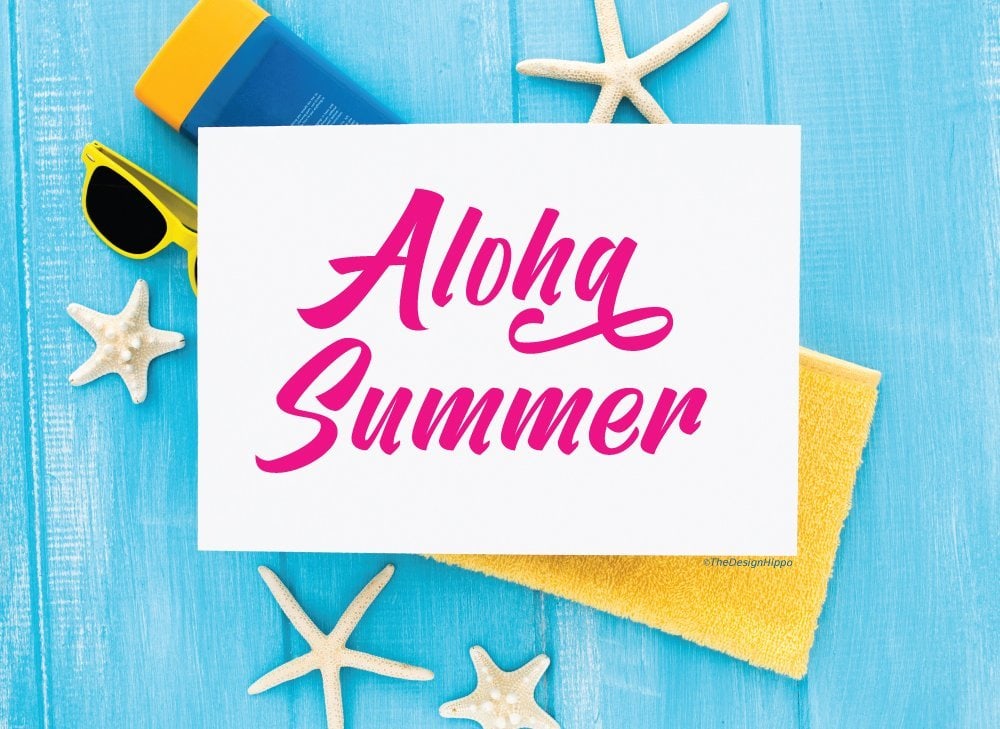
Are you looking for the best and free script fonts to use in your commercial projects for business? You are in the right place! I listed down a collection of modern, cute, elegant, handwritten, brush, vintage, and calligraphy fonts. Some of these fonts come with beautiful tails and swashes that are sure to make your designs extra special!
I hope that you love the script fonts that I put together for you and included a wide variety of font styles – modern, brush, handwritten, calligraphy, etc. So feel free to install these fonts and try them to figure out what works best for you. I included an example for each font to give you a better idea of using them.
FREE SCRIPT FONTS FOR COMMERCIAL USE
1. Ontel
This is such a fun, stylish, and bold script font! This handwritten font works well for branding, making signs, social media posts, logos, greeting cards, and writing quotes.
2. Open Heart
Open Heart is such a stunning and modern script font! It works very well for making elegant, feminine designs, business cards, logos, and invitations.
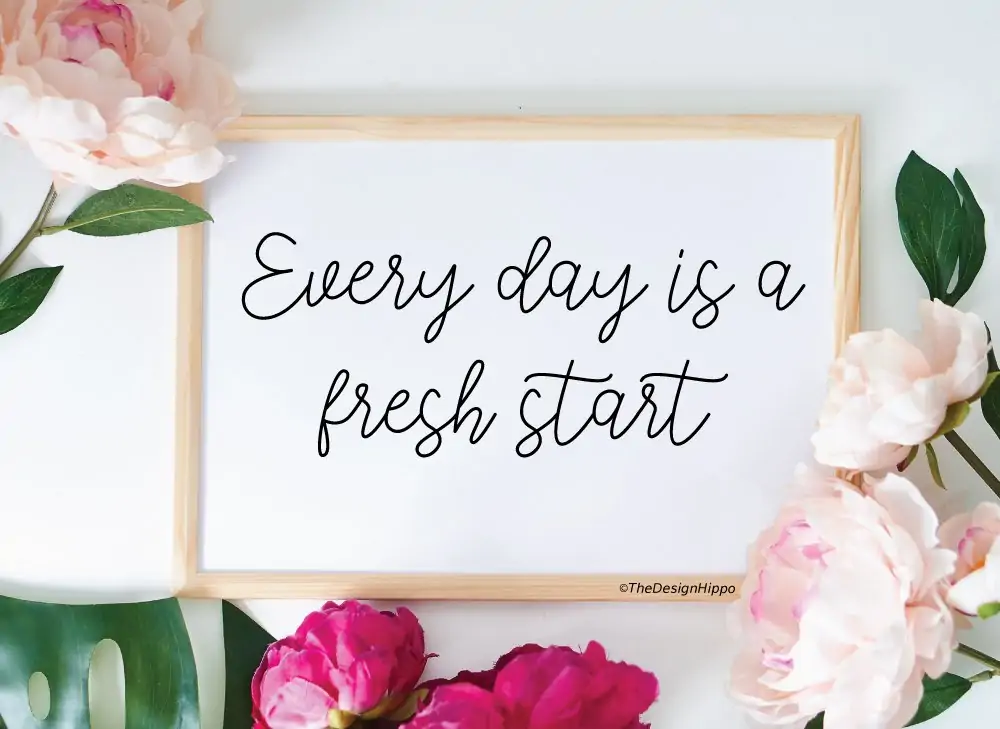
3. Amellis Path
Amellis is an elegant handwritten brush font that is perfect for so many projects. You can make designs for apparel, holiday cards, home decor, and social media posts.
4. Satori
A fun, quirky font with a dancing baseline to give your project a handwritten feel. Works well for writing funny, inspirational quotes.
5. Mama
An elegant and smooth script font that adds a handwritten feel to your projects. It comes with a set of gorgeous tails that you can use to make invitations, greeting cards, business cards, and wall art.
6. Vervelle
Vervelle is a fun vintage font with swashes. It has a playful and unique charm to it making it perfect for any project that needs to stand out.
7. Anjhay
A modern, fun font that works great for branding. I also love how cute quotes look in this font. Use the font in your black and white or pastel color-themed projects, and the results are stunning!
8. Shelly
Shelly is a cute and modern font that is sure to help add a lot of charm to your design projects. Use it to write inspirational quotes and any branding projects that need a punch of playful energy.
9. Sileighty
With its dancing baseline and a handwritten feel to it, Sileighty is sure to add a huge dose of cuteness to any of your projects.
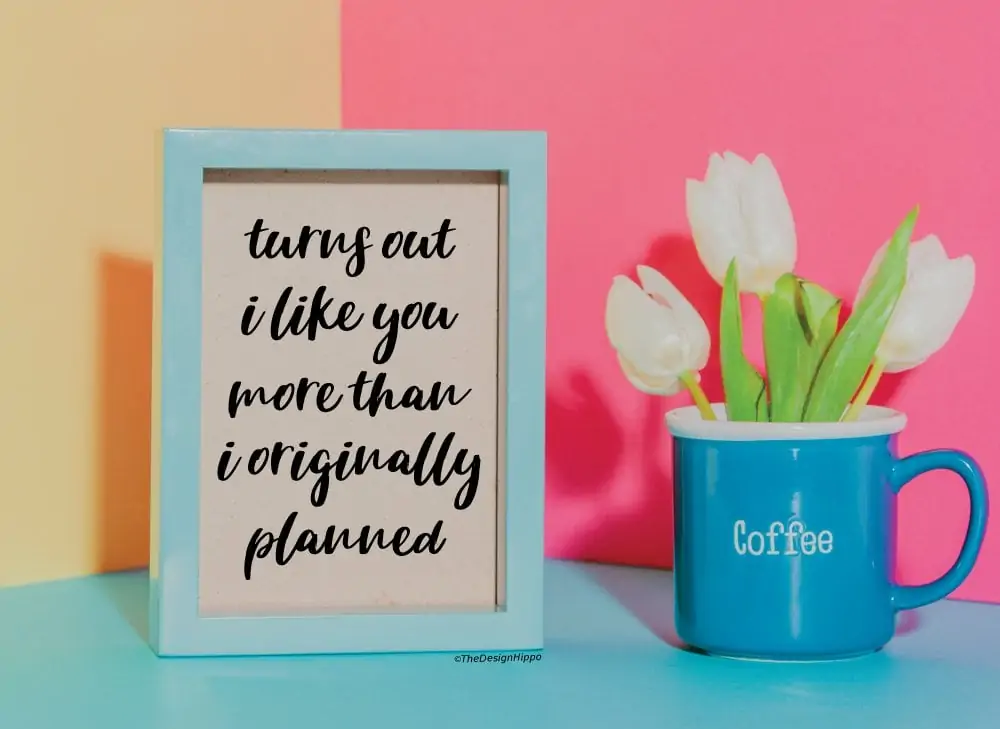
10. Short Message
A fun modern font that makes quotes look amazing. Great for social media posts or designing to make t-shirts, mugs, signs, tote bags, and more.
11. Nickainley
A cute monoline font that’s both vintage and classy in its appeal. Ideal for so many projects and themes – camping, inspirational quotes, packaging, advertising, restaurant menus, etc.
12. Amandella
A cute handwritten font with varying stroke thickness, ideal for adding that personal touch to your projects. Great for branding, social media posts, wedding invitations, and designing beautiful quotes.
13. William
A cute, bouncy script font that’s perfect for adding an elegant yet playful appeal to your design projects. Beautiful for writing quotes, designing wall art, greeting cards, and invitations.
14. My Shine
A beautiful calligraphy font with such cute swashes ending with hearts! Great for making invitations, posters, writing quotes, and branding.
15. Brighton
Brighton is a cute calligraphy font with a stroke that has a varying thickness. It is sure to make your design project look unique and professional.
16. Cloudy Night
Cloudy night is a fun font with a playful feel perfect for writing quotes to make printables, signs, or social media.
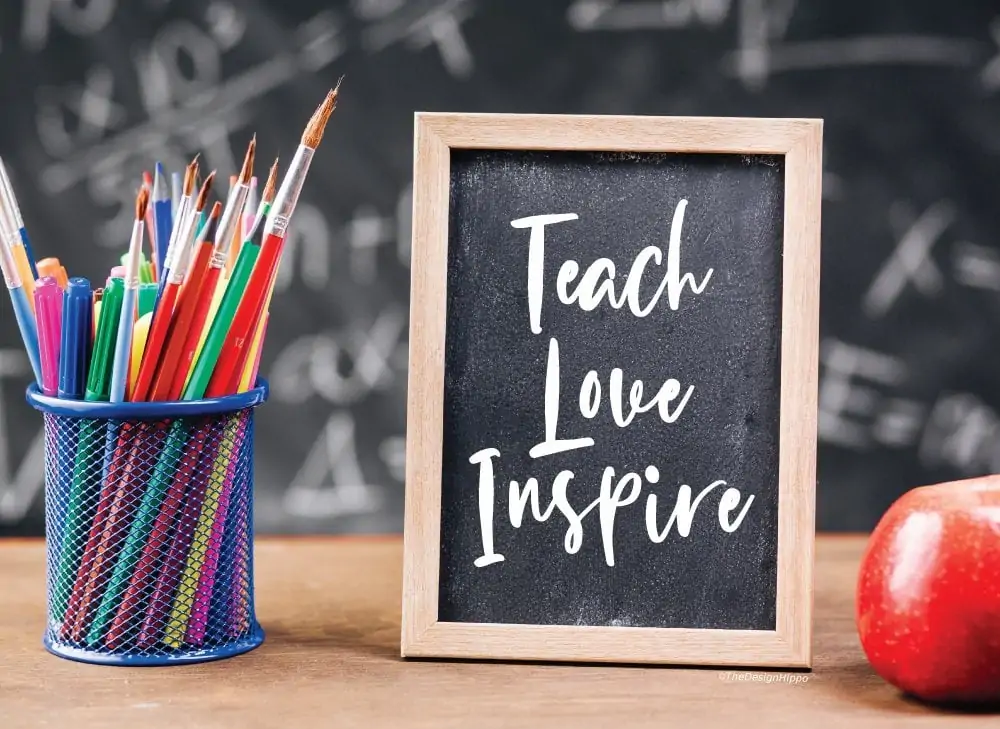
17. Girl
This is a beautiful handwritten font with amazing glyphs and swashes to play with. Perfect for making wall art and invitations.
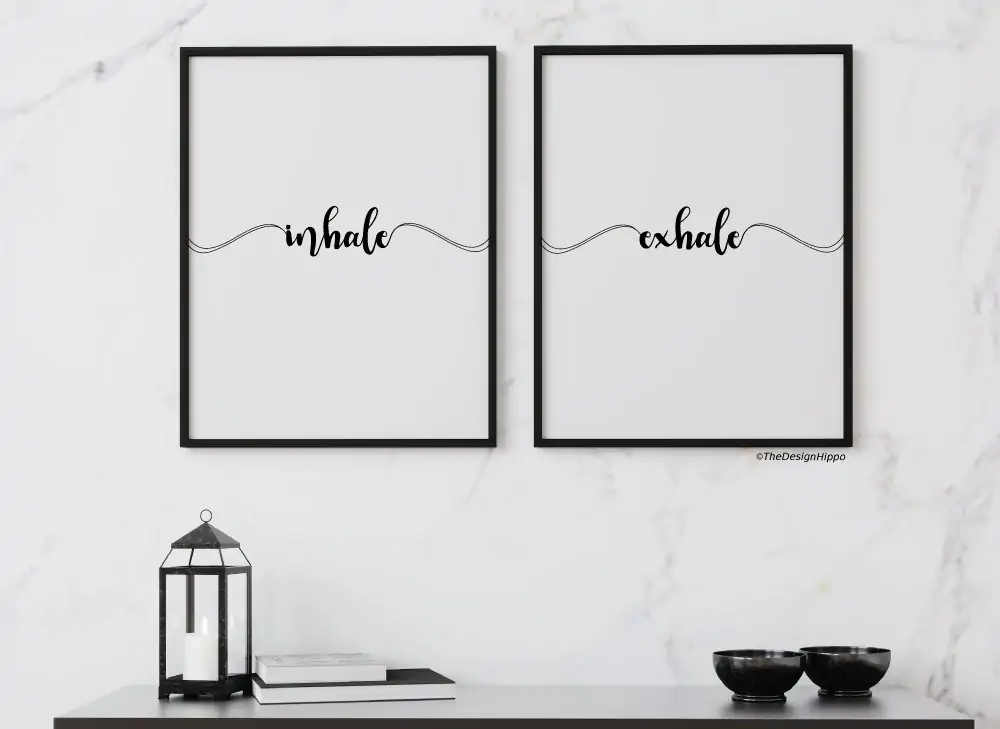
18. Bukhari
A monoline bold script font with cool swashes! Great for branding, designing quotes for apparel, and packaging. Combine the font with a distressed background, and voila, you have a vintage-themed design ready.